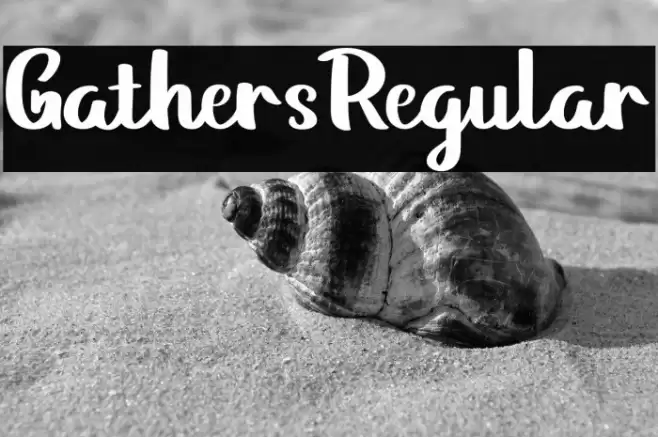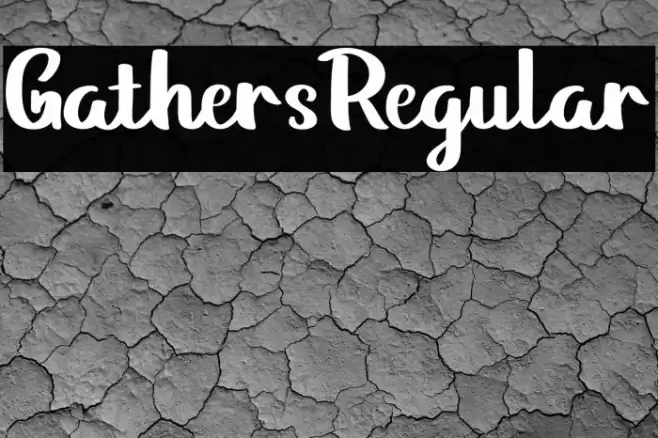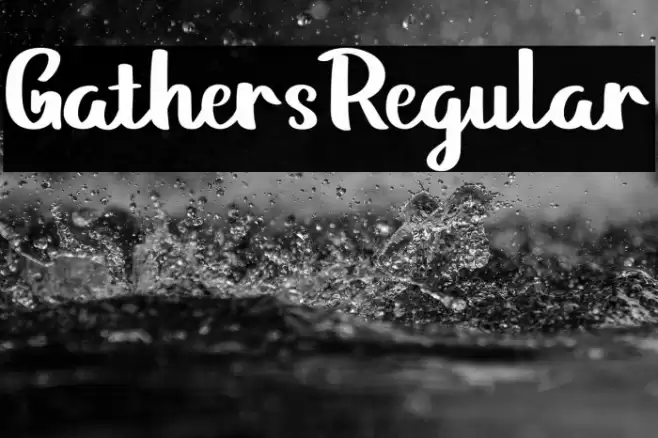
GathersRegular Font
GathersRegular Description
This font features a playful and bold script style with a handwritten feel. The characters are rounded and connected, giving it a fluid and dynamic appearance. The uppercase letters are slightly larger and more prominent, while the lowercase letters maintain a consistent flow. Numbers and special characters are designed to match the overall style, ensuring a cohesive look. The font's thick strokes and smooth curves make it highly legible, even at smaller sizes. Its energetic and friendly vibe makes it suitable for a variety of creative projects.
A bold, playful script font with a handwritten feel from Uncategorized fonts.
- Proposed Projects: Ideal for greeting cards, invitations, branding, and social media graphics.